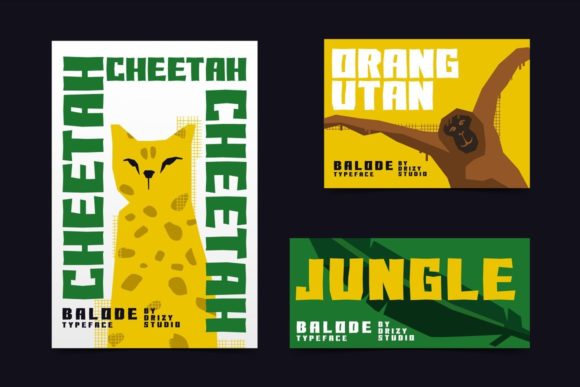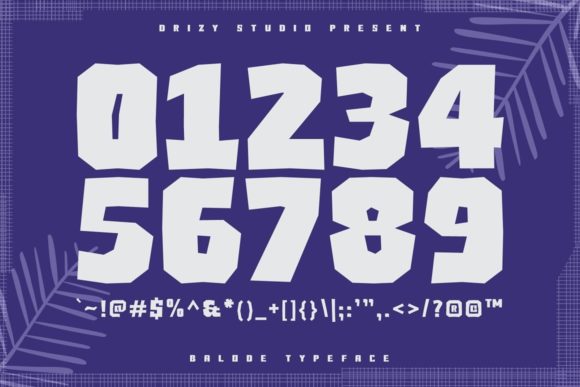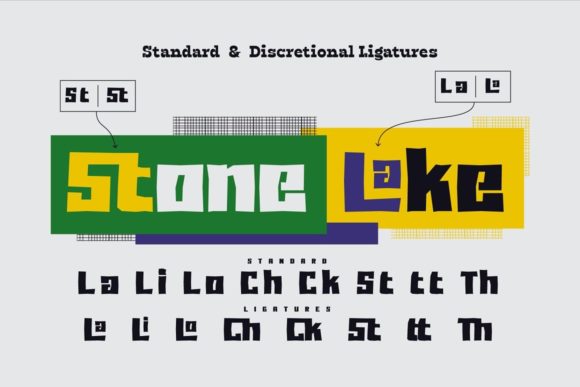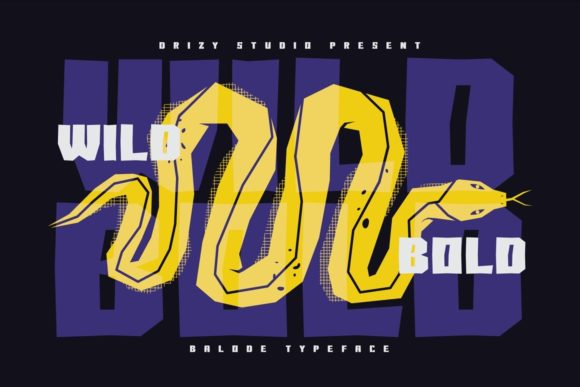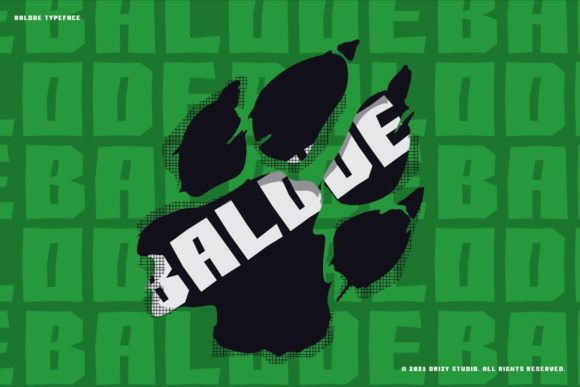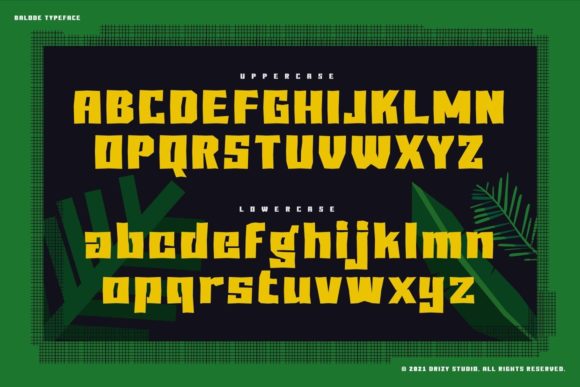
Introducing Balode Font: The Ultimate Bold Display Font for Designers and Crafters
Are you tired of using the same old fonts in your designs? Look no further than Balode Font, a thick lettered and bold display font that’s sure to elevate your creations to the next level. Whether you’re a designer, crafter, or simply someone who loves to dabble in typography, Balode Font is an incredible asset to have in your font library.
The Power of Bold Typography
Bold typography is a powerful tool in any designer’s arsenal. It can add emphasis, create visual interest, and even evoke emotions. But not all bold fonts are created equal. Some can come across as too harsh or overpowering, while others may lack the sophistication and elegance needed for certain projects. That’s where Balode Font comes in.
What Makes Balode Font Special
So, what sets Balode Font apart from other bold display fonts on the market? For starters, its thick, sturdy letters are perfect for making a statement. Whether you’re designing a logo, headline, or title, Balode Font is sure to grab attention and command respect. But despite its bold nature, Balode Font is also surprisingly versatile. It can be used for a wide range of topics and applications, from modern and edgy to classic and sophisticated.
Key Features of Balode Font
- Thick, bold letters: Perfect for making a statement and grabbing attention
- Versatile: Suitable for a wide range of topics and applications
- Elegant and sophisticated: Adds a touch of class to any design
- Easy to read: Despite its bold nature, Balode Font is surprisingly easy to read, even at smaller sizes
How to Use Balode Font in Your Designs
So, how can you start using Balode Font in your designs? Here are a few ideas to get you started:
- Logos and branding: Use Balode Font to create a bold and memorable logo that will help your brand stand out
- Headlines and titles: Add emphasis and visual interest to your headlines and titles with Balode Font
- Signage and posters: Use Balode Font to create eye-catching signage and posters that will grab attention
- Digital graphics: Add a touch of elegance and sophistication to your digital graphics with Balode Font
Tips for Getting the Most Out of Balode Font
Here are a few tips for getting the most out of Balode Font:
- Experiment with different colors: Try pairing Balode Font with different colors to create a unique and eye-catching effect
- Play with font sizes: Experiment with different font sizes to create visual interest and emphasis
- Combine with other fonts: Try pairing Balode Font with other fonts to create a unique and interesting typography combination
In conclusion, Balode Font is an incredible asset to any designer’s or crafter’s font library. Its thick, bold letters and versatile nature make it perfect for a wide range of applications and topics. Whether you’re looking to add emphasis, create visual interest, or simply make a statement, Balode Font is the perfect choice. So why wait? Download Balode Font today and start elevating your designs to the next level!